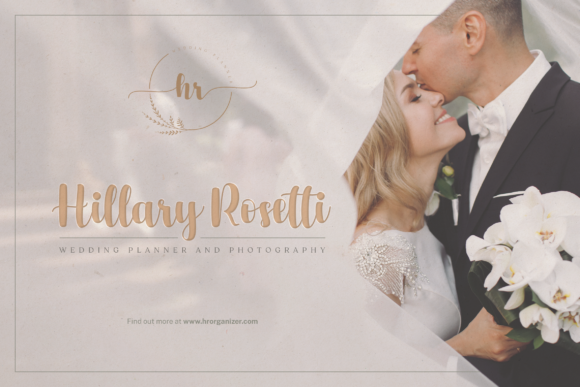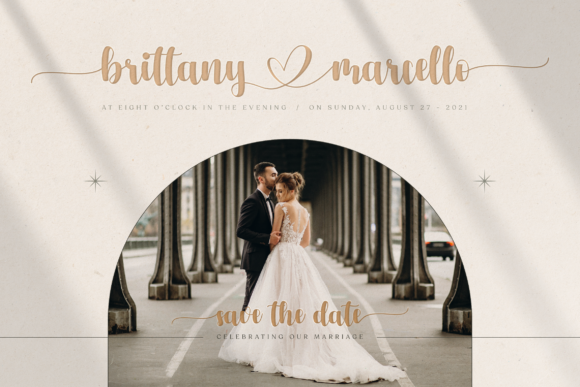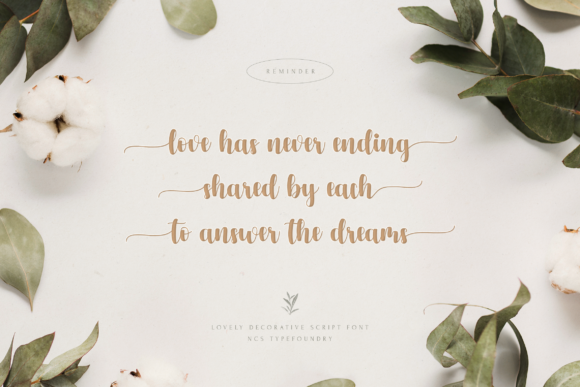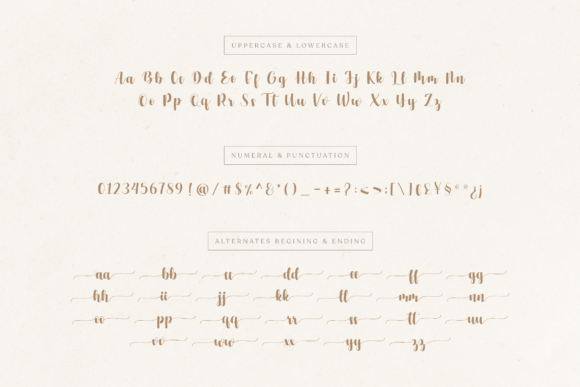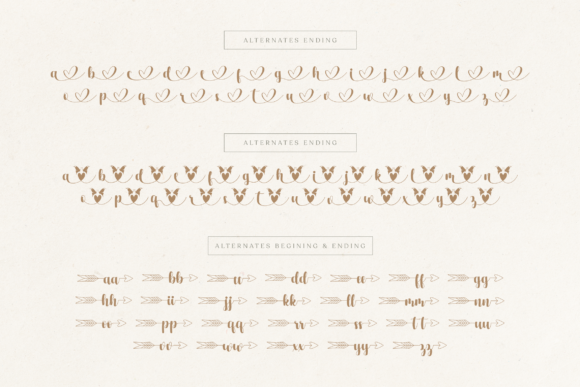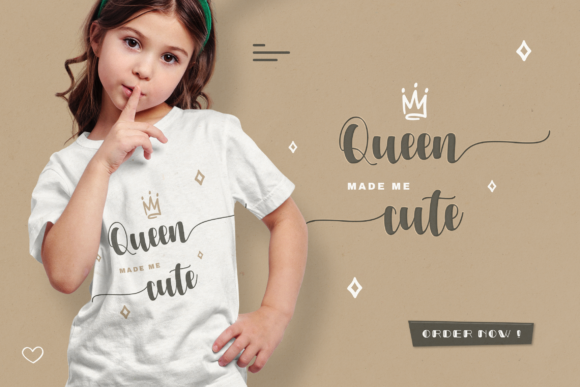
Introducing Harland Roselyn Font: Elevate Your Designs with Elegance and Sophistication
Are you searching for a font that exudes romance, sweetness, and luxury? Look no further than Harland Roselyn Font! This exquisite calligraphy typeface is designed to add a touch of elegance and sophistication to any design project. With its unique characteristics that dance along the baseline, Harland Roselyn is sure to capture the hearts of designers, crafters, and anyone looking to create stunning visual content.
The Charm of Harland Roselyn Font
Harland Roselyn Font is a romantic and sweet calligraphy typeface that boasts a distinctive charm. Its characters are carefully crafted to flow effortlessly along the baseline, creating a sense of movement and fluidity. This beautiful font is perfect for designers who want to add a touch of luxury and sophistication to their projects. Whether you’re working on a wedding invitation, a branding campaign, or a packaging design, Harland Roselyn Font is sure to make your design stand out.
One of the standout features of Harland Roselyn Font is its PUA (Private Use Area) encoding. This means that you can access all the amazing glyphs and ligatures with ease, giving you complete creative control over your design. With PUA encoding, you can effortlessly insert swashes, flourishes, and other special characters to add an extra layer of elegance to your design.
Harland Roselyn Font offers endless design possibilities, making it a versatile addition to any designer’s toolkit. Here are just a few ideas to get you started:
- Wedding invitations and stationery: Add a touch of romance and elegance to your wedding designs with Harland Roselyn Font.
- Branding and packaging: Use Harland Roselyn Font to create luxurious and sophisticated branding and packaging designs that stand out.
- Signs and posters: Create eye-catching signs and posters with Harland Roselyn Font that are sure to grab attention.
- Digital art and illustrations: Use Harland Roselyn Font to add a touch of elegance and sophistication to your digital art and illustrations.
Why Choose Harland Roselyn Font?
So why choose Harland Roselyn Font over other calligraphy typefaces? Here are just a few reasons:
- Unique and distinctive character: Harland Roselyn Font has a unique and distinctive character that sets it apart from other fonts.
- Elegant and sophisticated: This font exudes elegance and sophistication, making it perfect for high-end designs.
- Easy to use: With PUA encoding, you can access all the glyphs and ligatures with ease, making it easy to use and incorporate into your designs.
- Versatile: Harland Roselyn Font can be used for a wide range of design projects, from wedding invitations to branding and packaging.
In conclusion, Harland Roselyn Font is a stunning calligraphy typeface that is sure to elevate your designs with its elegance and sophistication. With its unique character, PUA encoding, and endless design possibilities, this font is a must-have for any designer or crafter looking to add a touch of luxury to their projects. So why wait? Get your hands on Harland Roselyn Font today and start creating stunning designs that will leave a lasting impression!
Whether you’re a seasoned designer or just starting out, Harland Roselyn Font is a great addition to your design toolkit. Its ease of use, versatility, and unique character make it an excellent choice for anyone looking to create beautiful and effective designs. So go ahead, explore the possibilities of Harland Roselyn Font, and see how it can help you take your designs to the next level!